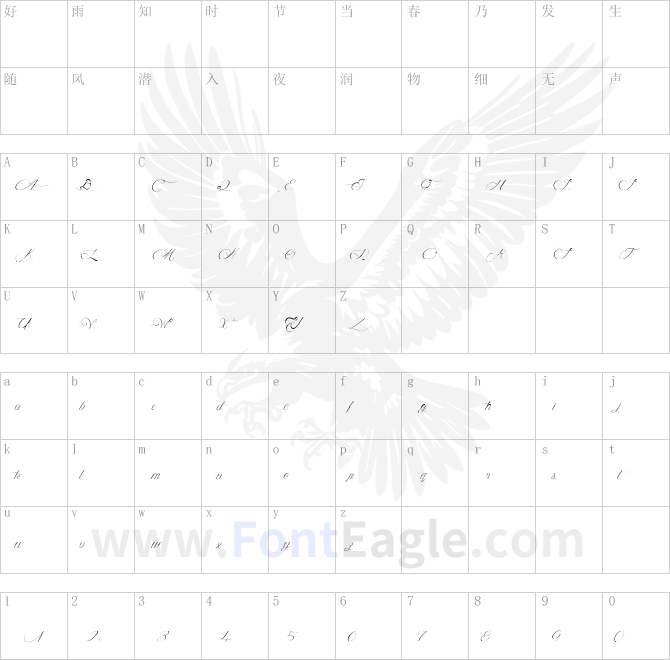
- Font name:Midnight Legend
MidnightLegend is a great font, widely used in graphic design, single-page menu design, poster design and other fields, and is deeply loved by designers.MidnightLegend download.